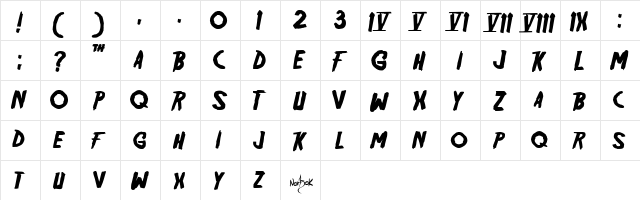
Friday13 Regular
| Designer | Thomas W.Otto |
Design Context for Friday13 Typeface
Friday13 is a composed and adaptable typeface that performs quietly and consistently across a wide range of design contexts.